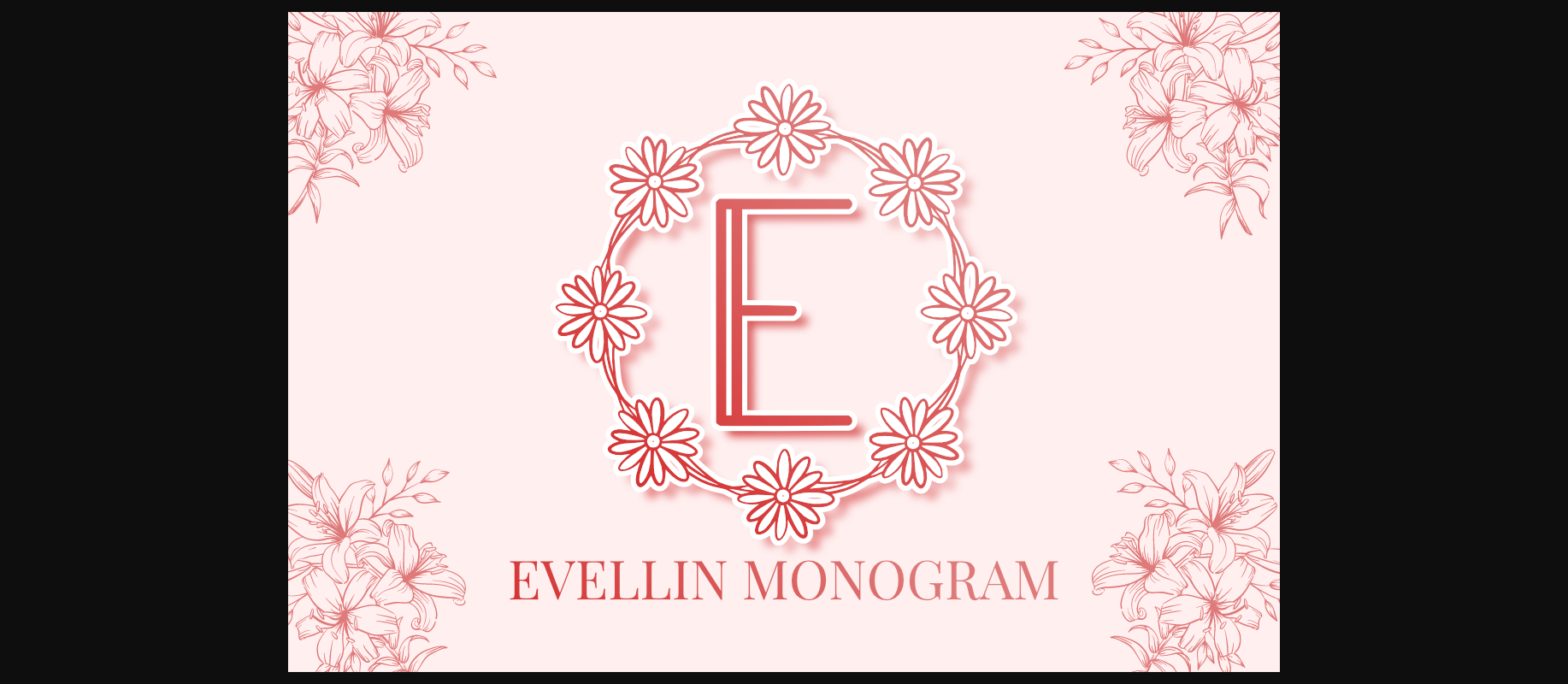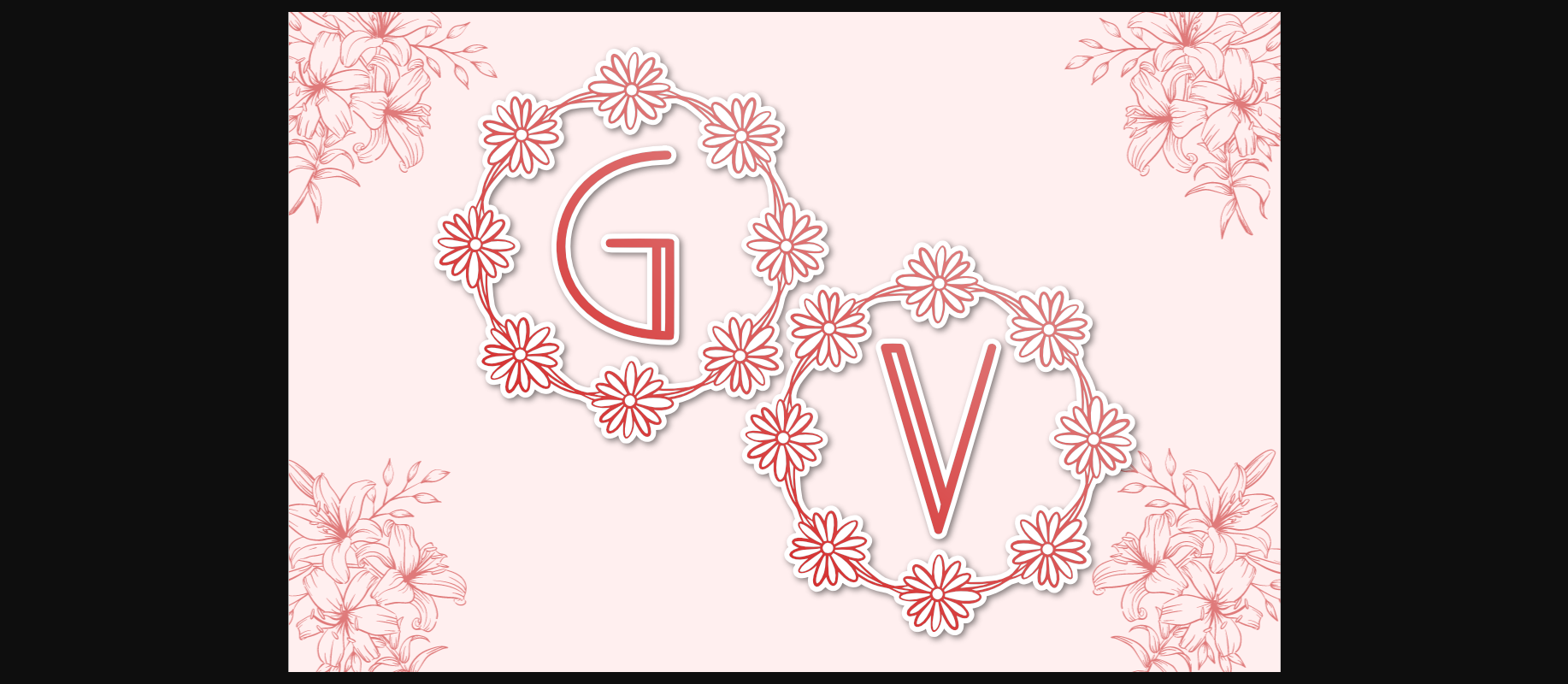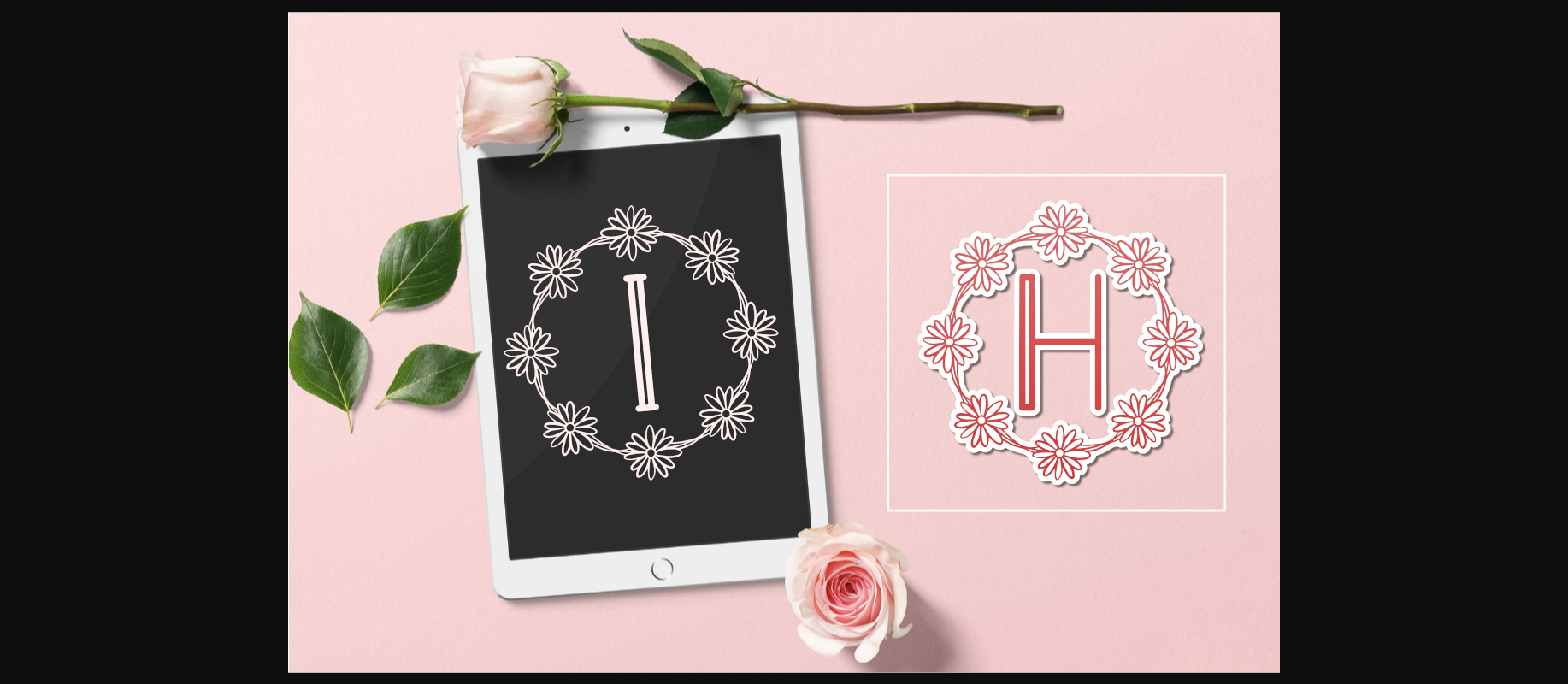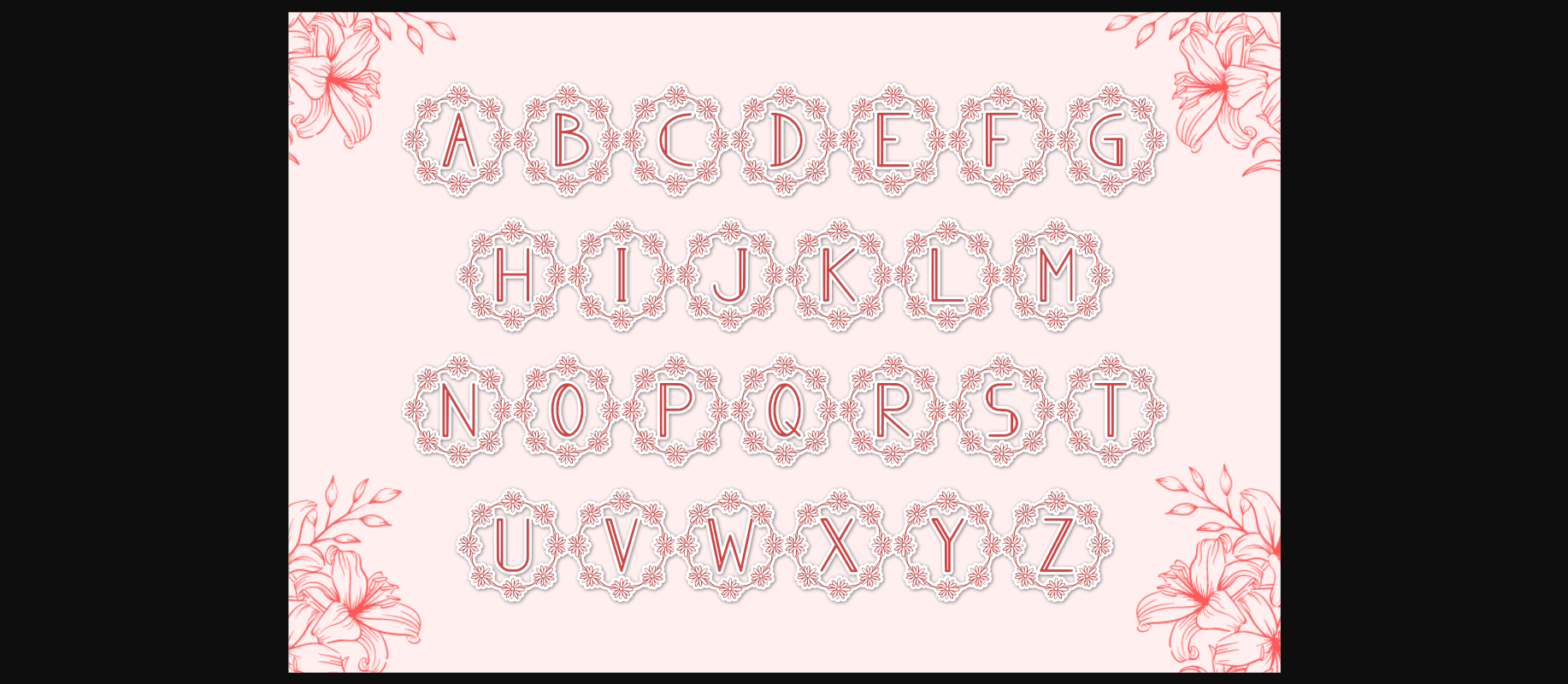
HomeDecorative FontsEvellin Monogram Font Decorative Fonts Evellin Monogram Font FacebookXPinterestWhatsApp 1 of 6 ... Evellin Monogram Font Poster 2... Evellin Monogram Font Poster 3... Evellin Monogram Font Poster 4... Evellin Monogram Font Poster 5... Evellin Monogram Font Poster 6... About Evellin Monogram Font Evellin Monogram is a charming decorative font. Fall in love with its authentic feel and use it to create gorgeous invitations, beautiful stationary art, eye-catching social media posts, and cute greeting cards. DOWNLOAD NOW People also explored Coffee High Font Madelliya Font Sweet Macarons Font Souplesse Matequn Historiya – Handwritten Font Claudh Font Typhoon Font Haboro Contrast v 250 0 TagsEvellin Monogram Font Previous articleWreath Christmas Monogram FontNext articlePlay Shop Sign Font LEAVE A REPLY Cancel reply Comment: Please enter your comment! Name:* Please enter your name here Email:* You have entered an incorrect email address! Please enter your email address here Website: Save my name, email, and website in this browser for the next time I comment. Personal Use Free Black Personal Use Free Read more about this font Adeline Personal Use Free Read more about this font Zero Hour Personal Use Free Read more about this font Creativo Personal Use Free Read more about this font BLOG Using Fonts in Digital Marketing: Tips to Strengthen Your Brand Identity In the realm of digital marketing, every visual element plays a crucial role in shaping a brand's identity, and fonts are no exception. The... Modern Sans-Serif Fonts That Brands Love in 2025 Top 7 Google Fonts Alternatives for Faster and Privacy-Friendly Web Design (2025) Top 10 Handwritten Fonts That Elevate Your Designs